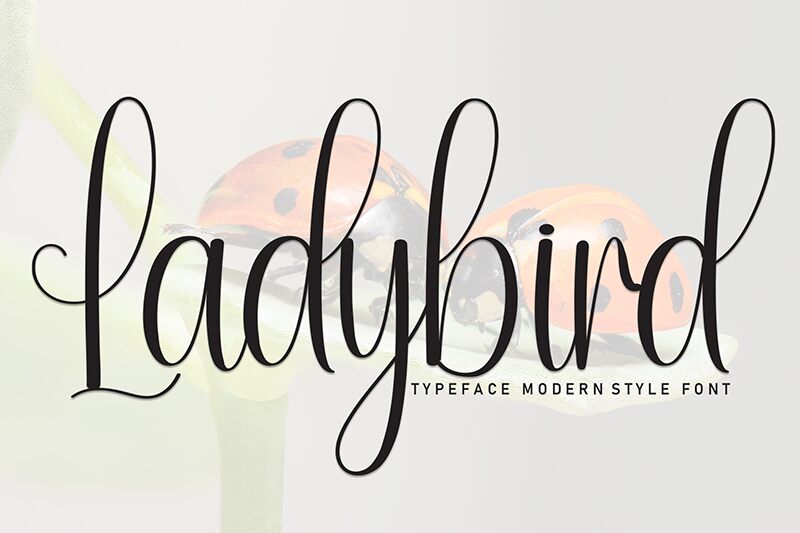
Ladybird
Ladybird font by Andi Moz is a free handwritten font with expressive strokes in a modern script style. It has elegant flowing lines, decorative smooth appearance, and graceful curves which make it quite sophisticated in an understated way. It sets the perfect example of both moods; eased yet convicted.
Its expressive mood makes Ladybird suitable for invitation cards, business cards, photography artwork, branding projects. Use it as watermark on digital signatures or surprise your audience with great posters and magazine covers’ headlines. Social media updates such as Instagram and YouTube can be both professional-looking and informative at once.